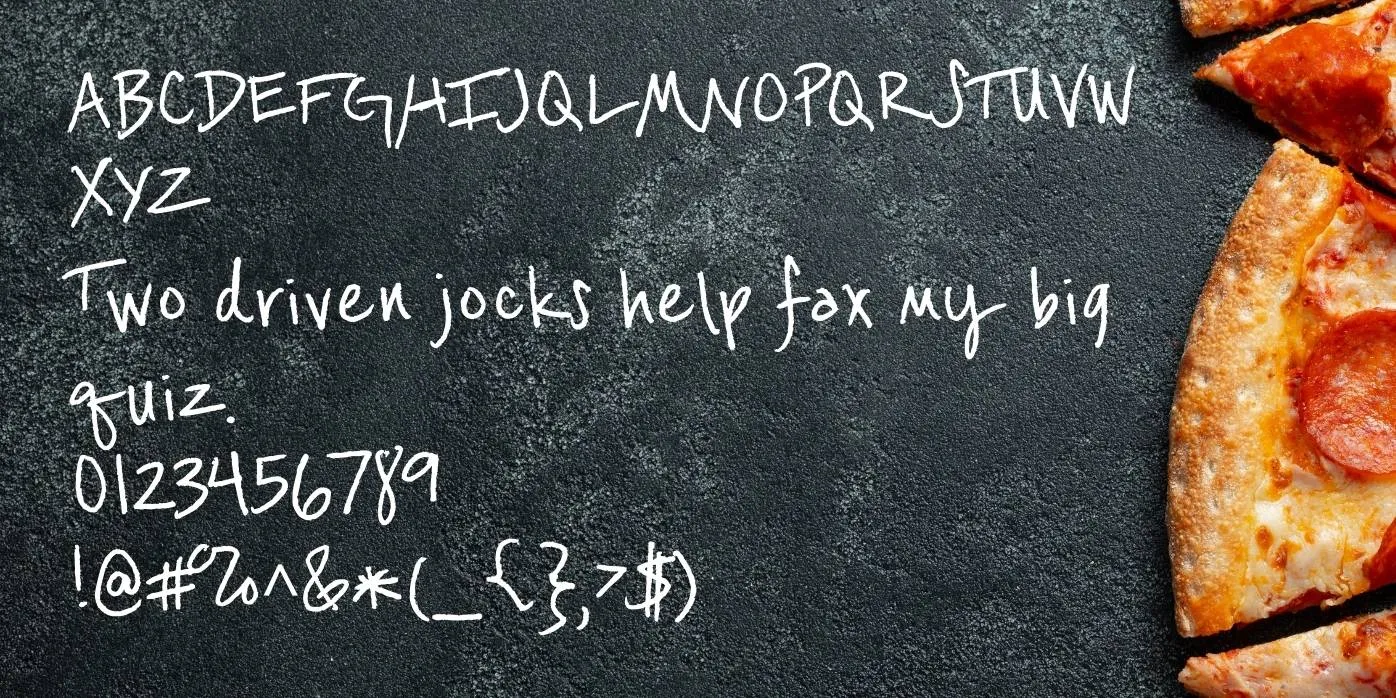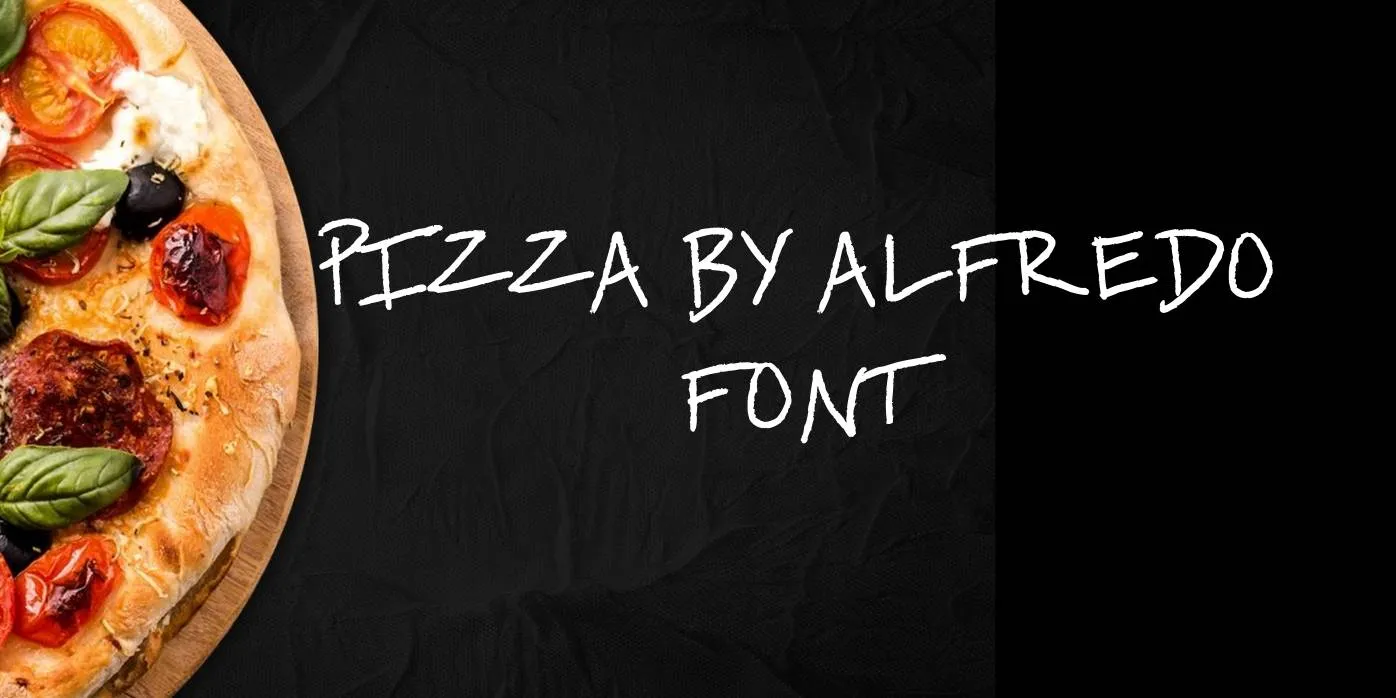
Pizza By Alfredo Font
Introducing a very lushing and stunning handwriting style typeface known as Pizza By Alfredo Font. The creator of this outstanding and useful font is “FontPanda”, he is very professional in his field. The typeface family belongs to a Script font family. Pizza By Alfredo Font has a very isolated and notable handwriting script shape that may increase the legibility of visual text with ease.
The characters of this font provide a wealthy result to your design projects. This is a very famous font and many downloaders due to its handwritten style characters and useful symbols. The font has the potential to support a lot of languages and accents for international designers. The font family has Uppercase Letters and Lowercase Letters, Numbers / Numerals, symbols, and some special characters as well.  The typeface family only has TTF features and is ready to download.